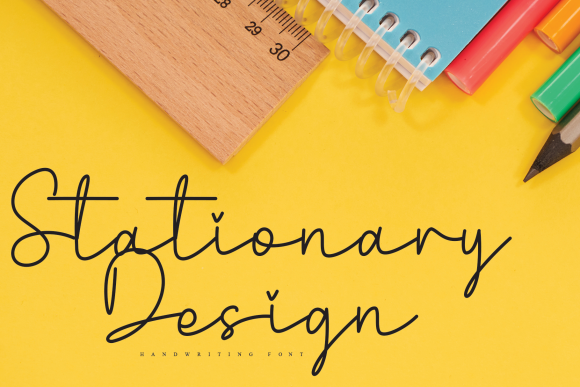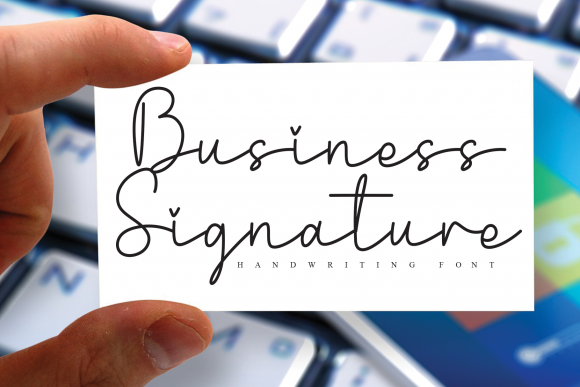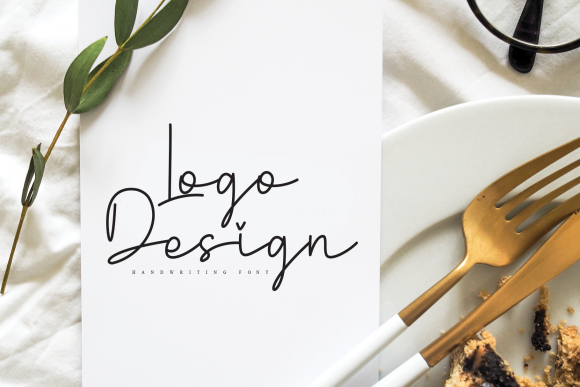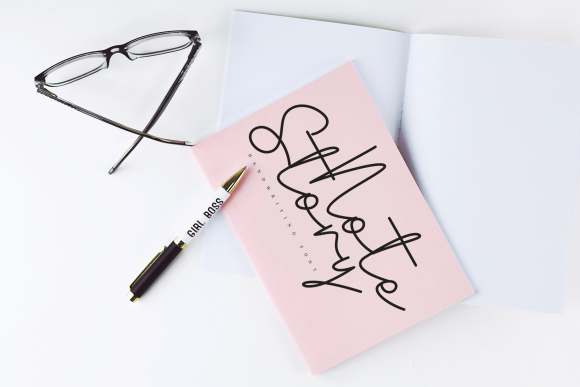
Dazzling Font
About Dazzling Font
Dazzling is a thin and natural handwritten font. Whimsical and a bit quirky, this font will brighten up each of your designs. Add it confidently to your projects, and you will love the results.